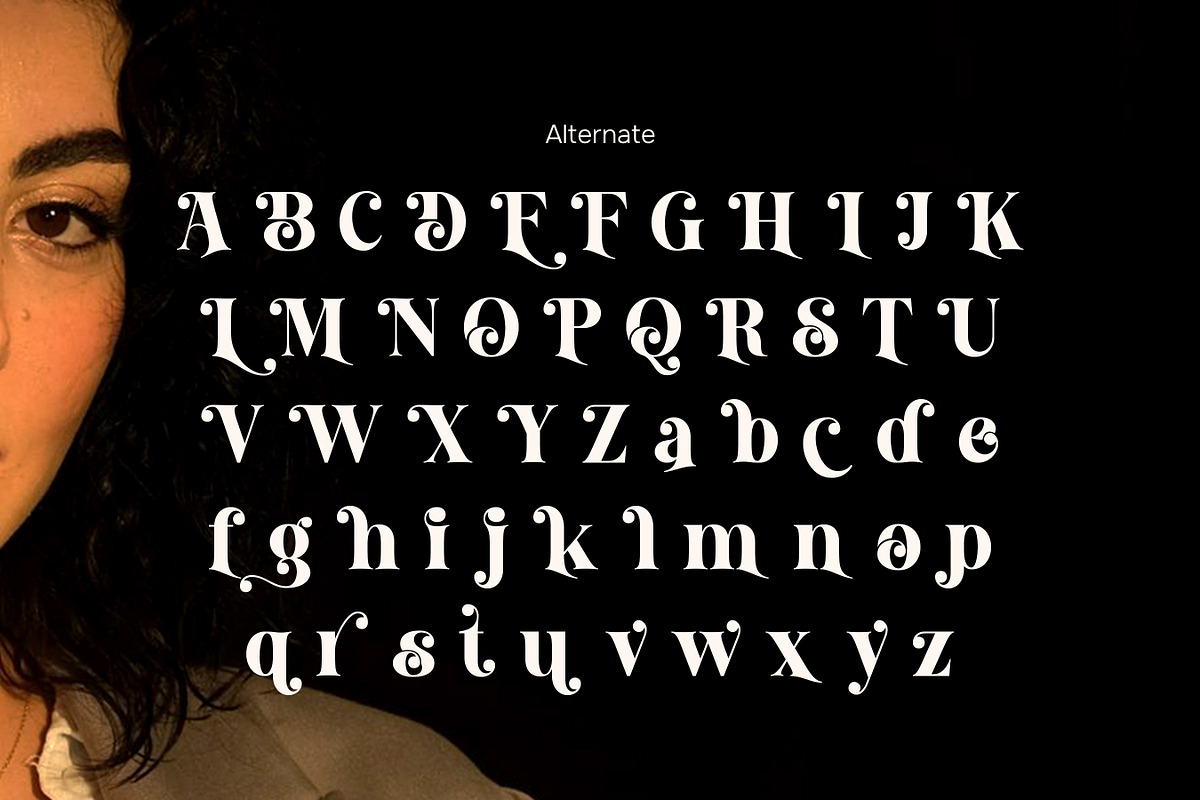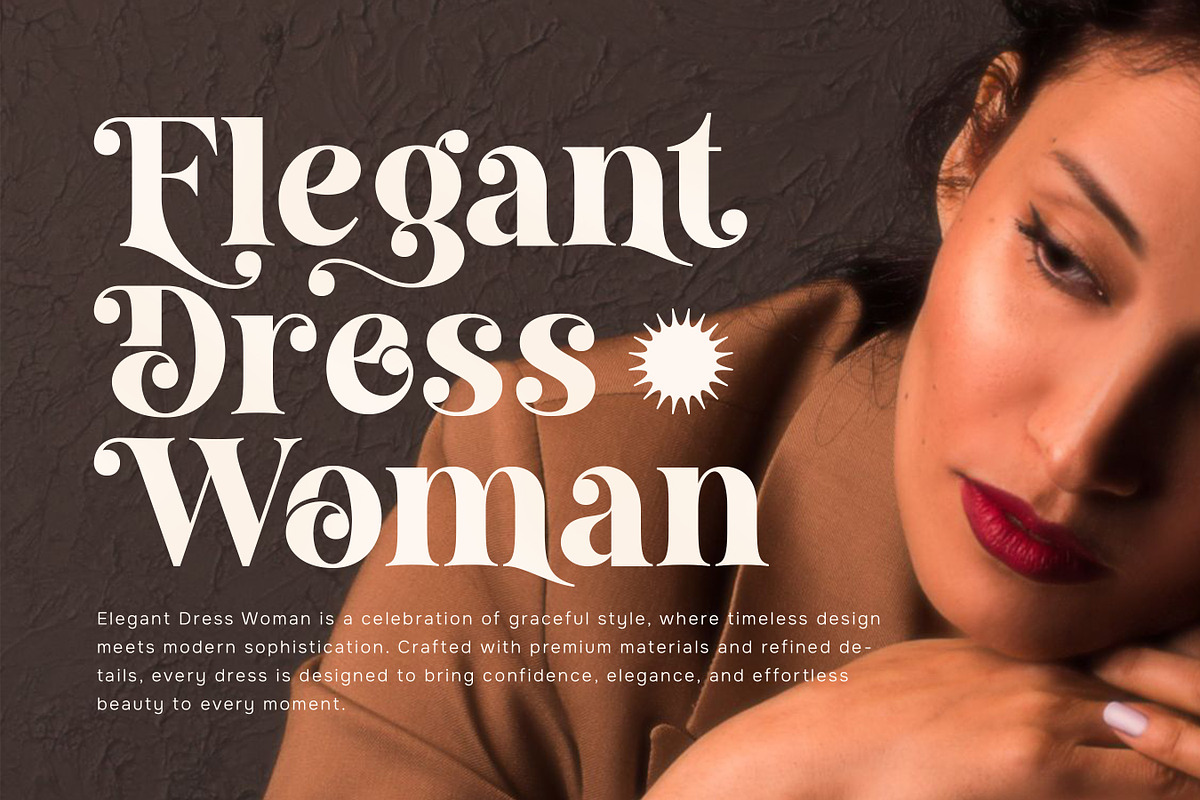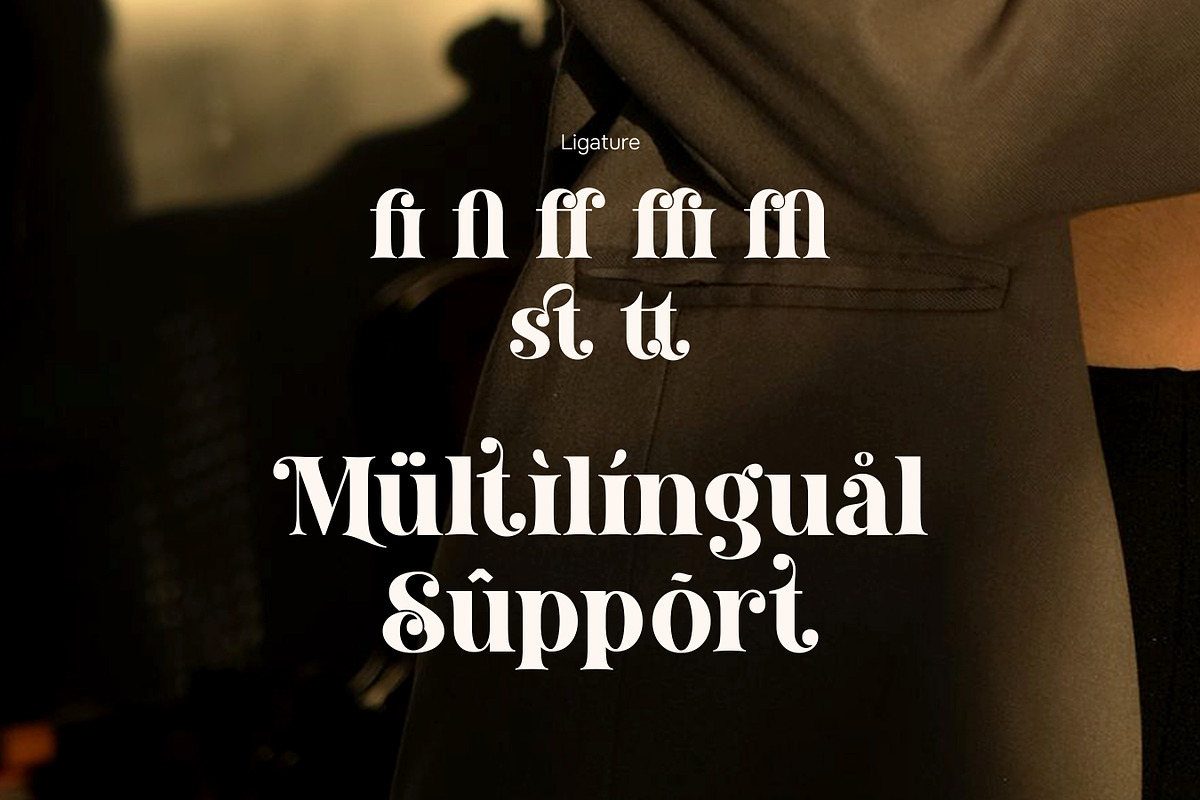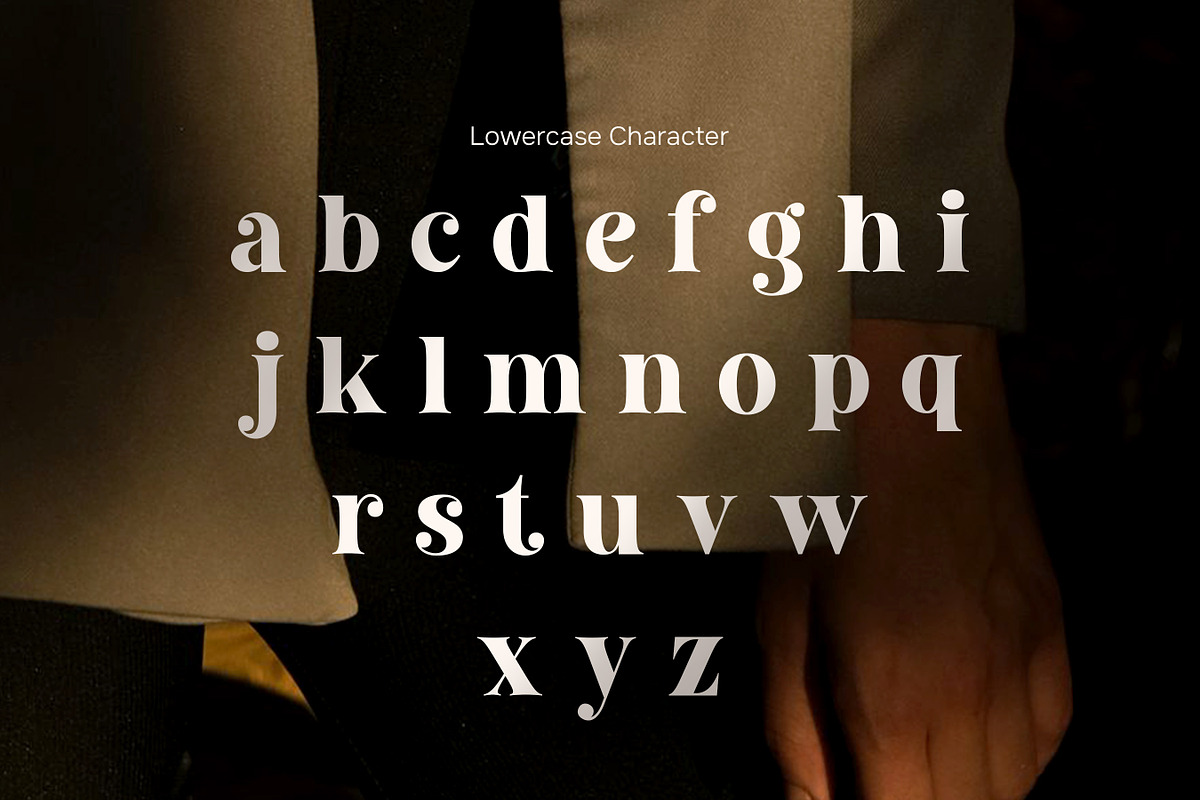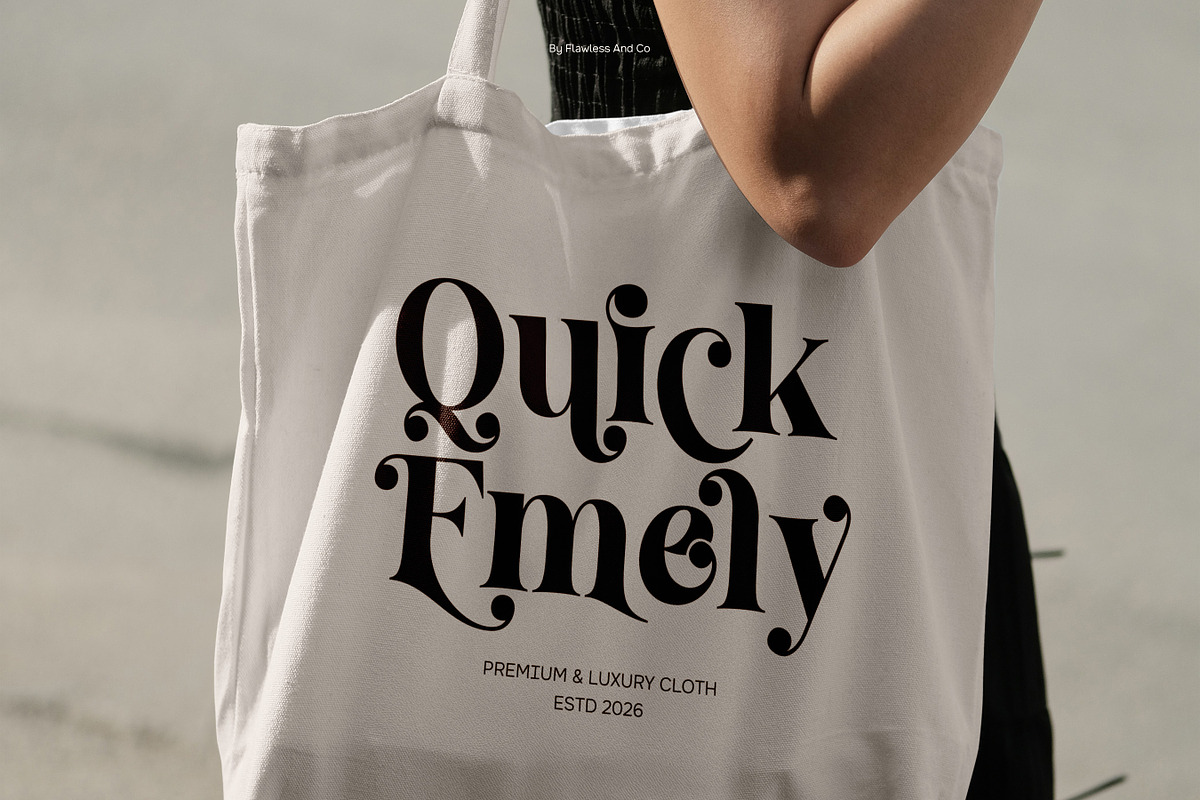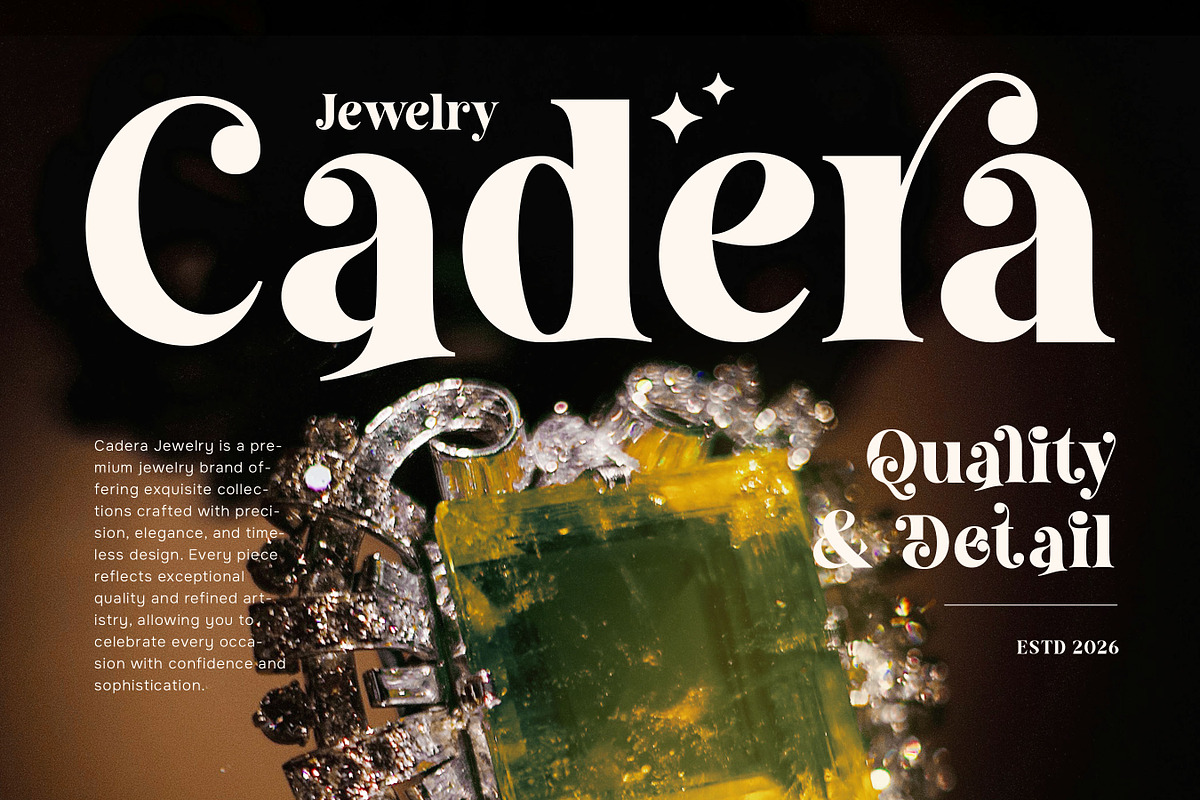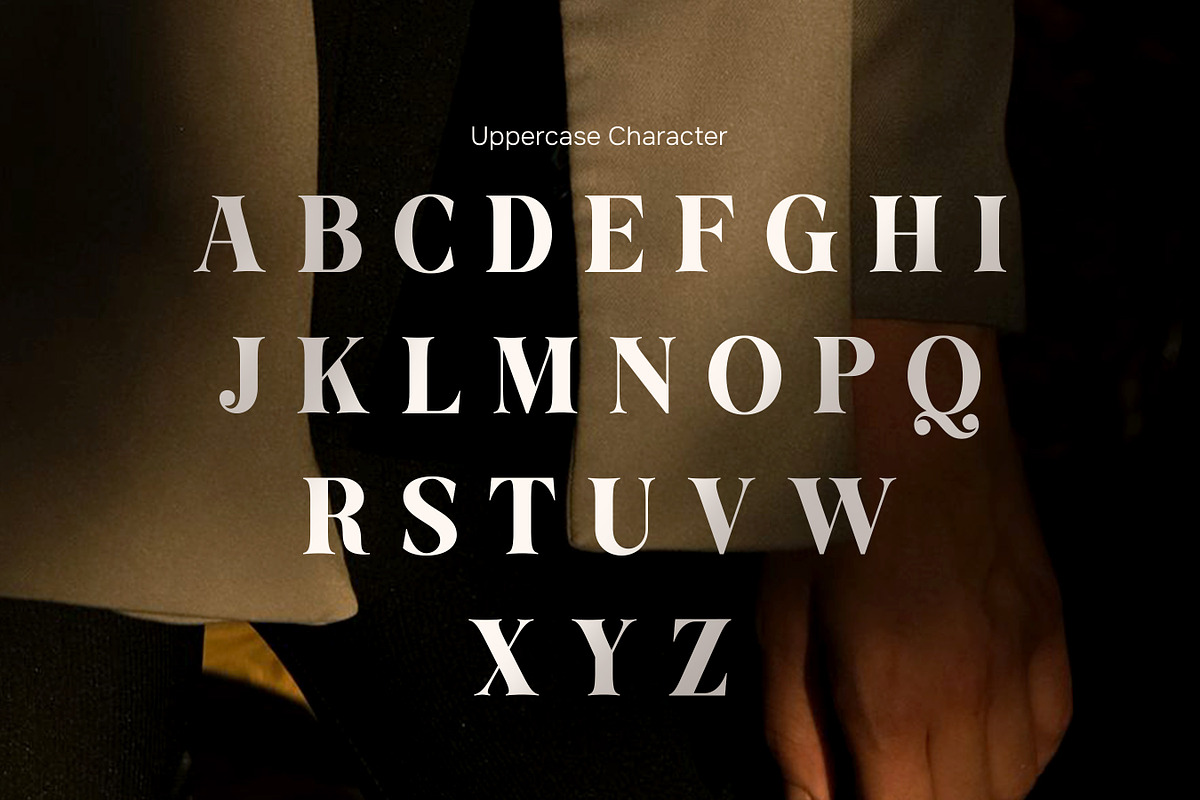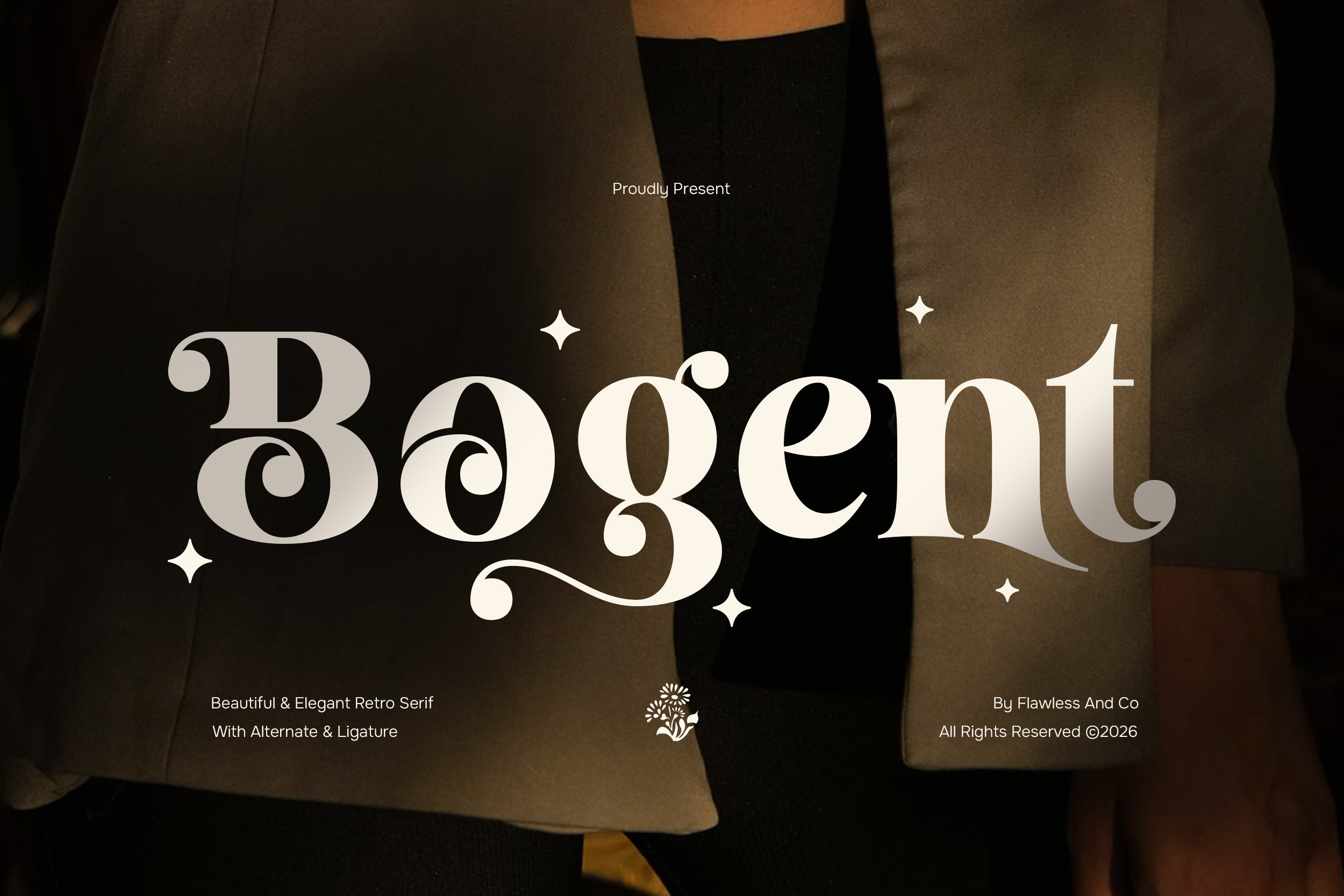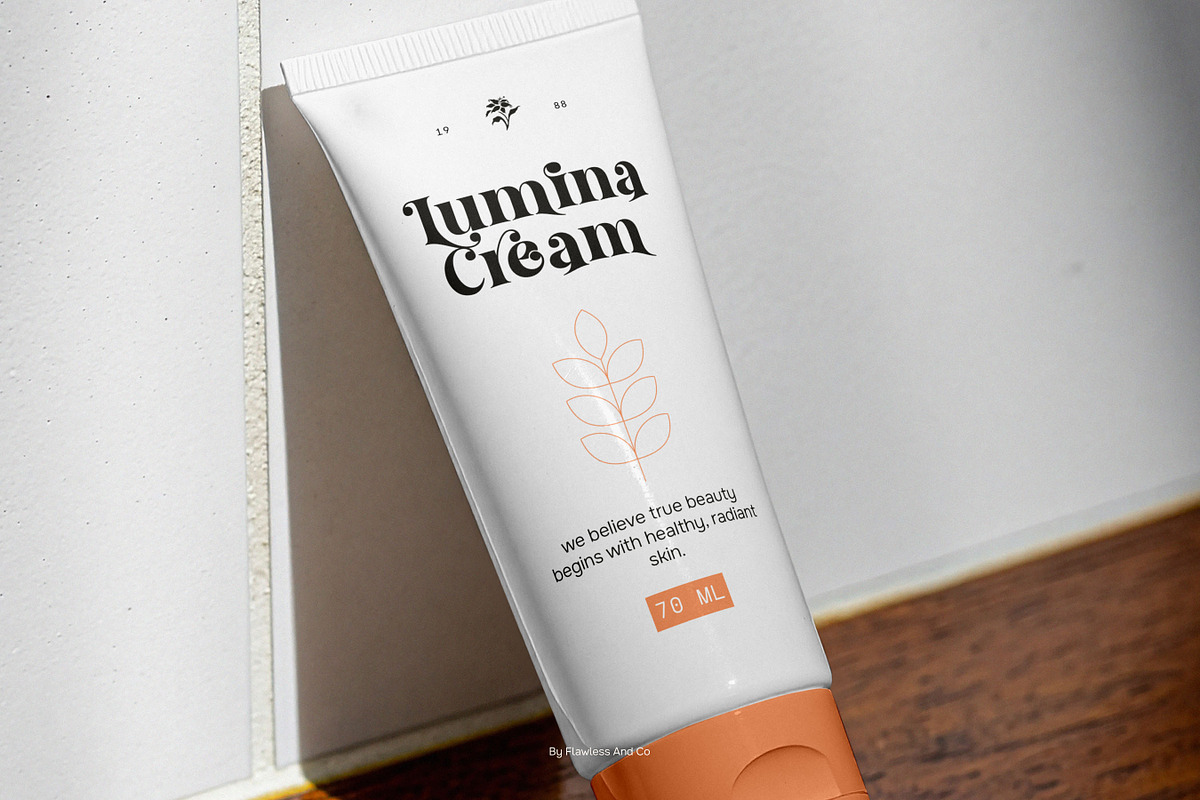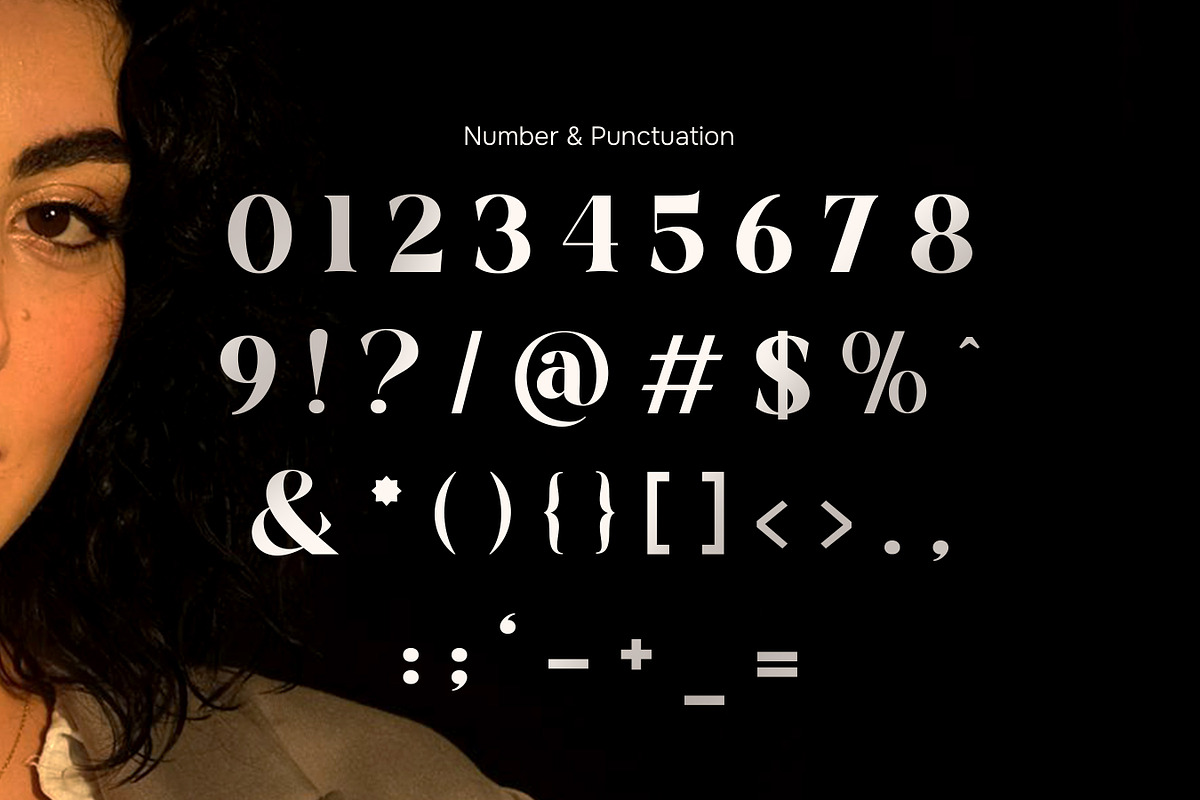
Bogent - Retro Classic Serif Font
Bogent is a beautiful retro serif font that blends classic elegance with luxurious vintage charm. Inspired by timeless typography, it features refined serifs, graceful curves, and sophisticated details that create a rich and distinctive visual identity. With its harmonious balance between retro character and premium aesthetics, Bogent brings warmth, confidence, and elegance to every design.
Crafted for creatives who appreciate timeless beauty, Bogent is perfect for making bold statements while maintaining a refined and polished appearance. Whether you're designing a luxury brand, creating elegant packaging, or developing sophisticated editorial layouts, this typeface delivers a classic look that feels both nostalgic and contemporary.
Alternates & Ligatures
Who Should Use Bogent?
Bogent is ideal for designers, creative studios, entrepreneurs, and luxury brands looking for a serif font that captures the beauty of classic typography with a refined retro personality. It's perfect for projects that require elegance, authenticity, and a timeless visual presence that never goes out of style.
Suitable For:
Luxury and vintage branding
Classic logo design
Boutique and lifestyle brands
Fashion and beauty packaging
Jewelry and perfume branding
Premium café and restaurant branding
Editorial headlines and magazine covers
Wedding stationery and invitations
Luxury product packaging
Elegant typography and social media content